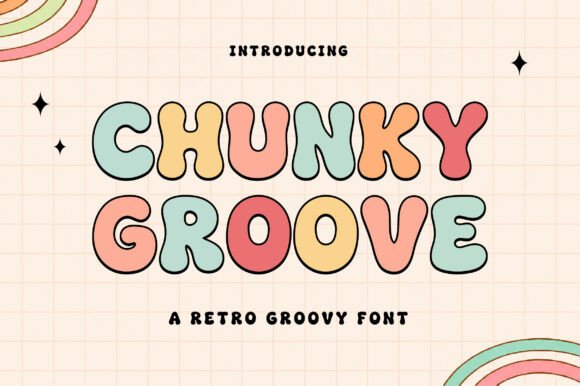
Chunky Groove: A Retro Font for Modern Projects
If you’ve ever wanted to inject a dose of pure, unadulterated fun into your designs, the search often leads you back to the bold aesthetics of the past. Chunky Groove is a typeface that captures this sentiment perfectly, offering a bold retro groovy vibe that feels both nostalgic and incredibly fresh. It isn’t just another display font; it is a design asset that brings warmth, personality, and a distinct handmade feel to any project it touches. With its thick, rounded letterforms and playful vintage personality, this font is designed to make your text not just readable, but memorable.
The Anatomy of Fun: Visual Style and Characteristics
At its core, Chunky Groove is inspired by the kinetic typography of the late 1960s and 1970s. You can see the DNA of classic rock posters, psychedelic album covers, and vintage toy packaging in its construction. The defining feature here is the weight of the letters. These are heavy, substantial characters that command attention immediately. However, unlike sharp, aggressive geometric fonts, Chunky Groove softens the blow with smooth curves and rounded corners. This creates a "cute" factor that makes the font approachable rather than intimidating.
The visual texture of the typeface mimics a slight ink spread or a stamped effect, giving it that authentic handmade feel. It sits comfortably in the category of retro fonts, but it avoids looking dated because of its clean execution. The kerning (the space between letters) is often tight in designs using this style, allowing the letters to interact and create a cohesive block of color. When you use Chunky Groove, you are essentially adding a piece of design history to your canvas, but one that has been polished for modern digital and print standards.
Where the Groove Fits: Ideal Applications and Use Cases
Understanding where a premium font shines is just as important as how it looks. Because Chunky Groove is a display font, it is best utilized for headlines, logos, and short bursts of text where personality needs to outweigh density. It is not designed for long-form body copy in a novel, but for the cover of that novel? Absolutely.
Here is where this typeface truly excels:
Strategic Typography: Influence on Brand and Readability
Choosing a font is a strategic business decision, not just an artistic one. The typeface you choose signals your values to your audience before they even read a single word. By selecting Chunky Groove, you are signaling that your brand is approachable, creative, and perhaps a bit rebellious against the corporate norm. This is crucial for entrepreneurs and small business owners looking to differentiate themselves in crowded markets.
One common concern with bold, groovy fonts is readability. While Chunky Groove has a distinct style, it remains surprisingly legible. The designers behind typefaces like this prioritize the "anatomy" of the letter—ensuring the 'a' doesn't look like an 'o', and the 'n' doesn't look like an 'h'. However, context matters. For web design, ensure the font size is large enough to appreciate the details. On mobile screens, overly intricate retro fonts can blur, but the thick weight of Chunky Groove generally holds up well.
Furthermore, using this font consistently across your touchpoints builds brand recognition. When a customer sees that specific rounded, chunky typeface on a Facebook ad, and then sees the same style on your product packaging, it reinforces your professional image. It turns a simple typeface into a recognizable asset.
Practical Guide: Pairing and Implementation
To get the most out of Chunky Groove, you need to think about its companions. A font pairing strategy is essential. Because Chunky Groove is loud and expressive, it needs a quieter partner to do the heavy lifting of body text. You would rarely pair a groovy font with a script font or another handwritten font; that creates visual chaos. Instead, look for a neutral sans serif font or a clean serif font.
For example, using a geometric sans serif like Montserrat or a classic serif like Lora for your paragraphs allows the headings in Chunky Groove to pop without overwhelming the reader. This balance is key to good modern typography.
When implementing the font, pay attention to the licensing. Most high-quality commercial fonts come with specific terms regarding usage on merchandise versus digital ads. Always review the license to ensure your usage is covered, especially if you are selling t-shirts or stickers. Additionally, explore the included styles. Does the font family include alternates or ligatures? These extra glyphs can add even more authenticity to your logo design or header text, allowing you to swap out letters to avoid repetition.
Finally, test it. Design is an iterative process. Try Chunky Groove in all caps for a strong, authoritative look, or use lowercase for a softer, friendlier vibe. Play with the tracking (letter spacing)—widening the space can give it a modern, airy feel, while tightening it emphasizes that classic 70s density. Whether you are designing for kids projects, invitations, or a full-scale corporate rebrand, this font offers a versatile foundation for creativity. It proves that serious design doesn't always have to be serious; sometimes, it just needs a little groove.